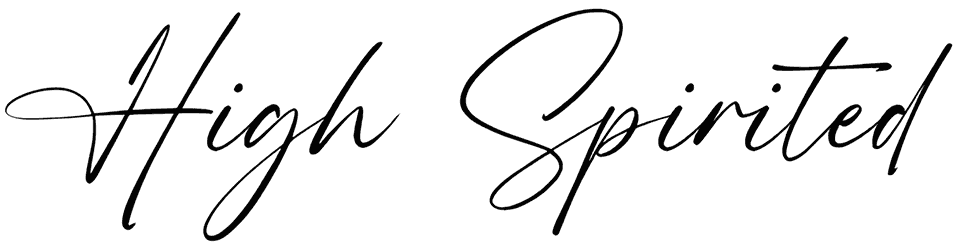
High Spirited Font
Designed byOctotype Thomas Boucherie
High Spirited is a beautiful combination of classic calligraphy and modern elegance that can give a friendly and informal feel to your writing. This script font has a clean and reliable appearance; however, it is a bit difficult to read. You can use this font for branding in various fields, such as T-shirt printing, logo design, food packaging, and invitation card design.